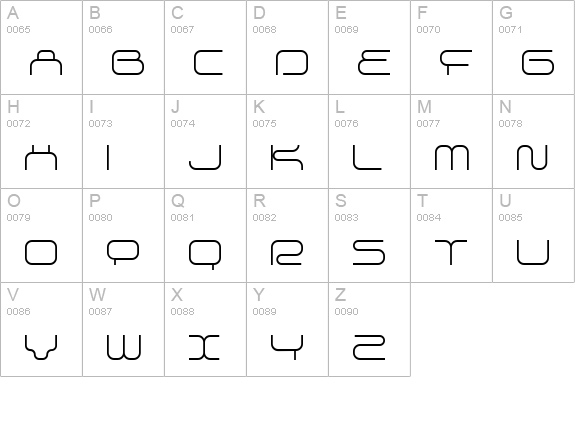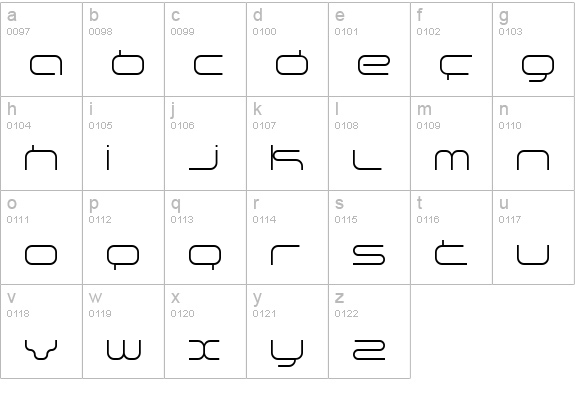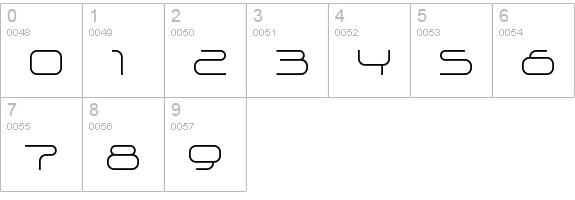
supersonic Thin is a delicate, low-contrast variant in the supersonic typeface family \xE2\x80\x94 well suited to fashion editorial, minimal branding, and high-contrast display.
Introducing the mesmerizing Supersonic Thin font, a sleek and modern typeface that exudes elegance and sophistication. With its supersonic speed-inspired design, this font is perfect for adding a touch of futuristic flair to any project. The thin, graceful strokes of the characters create a sense of lightness and airiness, making it ideal for conveying a sense of speed and motion. Best of all, this stunning font is available for free download at FontsMarket.com. Now you can elevate your designs with this cutting-edge typeface without breaking the bank. Whether you're working on branding, signage, or web design, the Supersonic Thin font is sure to make a bold statement and leave a lasting impression. Download it today and take your projects to new heights of creativity!